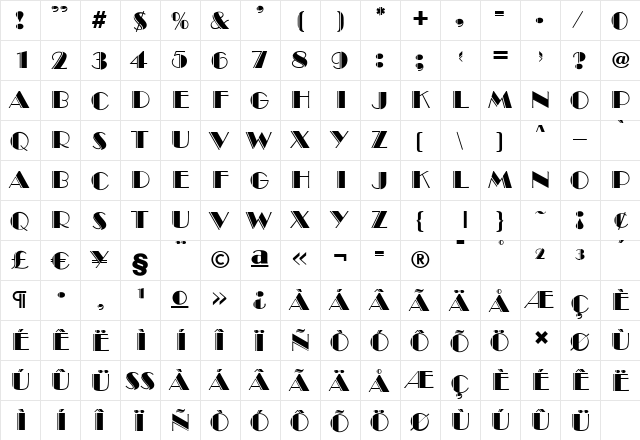
AnnaBeckerEngraved Regular
Design Context for AnnaBeckerEngraved Typeface
AnnaBeckerEngraved brings ornamental detail and strong personality to headlines and identities, where visual impact matters more than quiet functionality.
Font Pairing: Pair with a clean neutral sans-serif for body copy to let AnnaBeckerEngraved's character lead without overwhelming the composition.
Pro Tip: Use AnnaBeckerEngraved exclusively at display sizes — it was designed to be seen, not read at length. Let a neutral companion handle body copy.